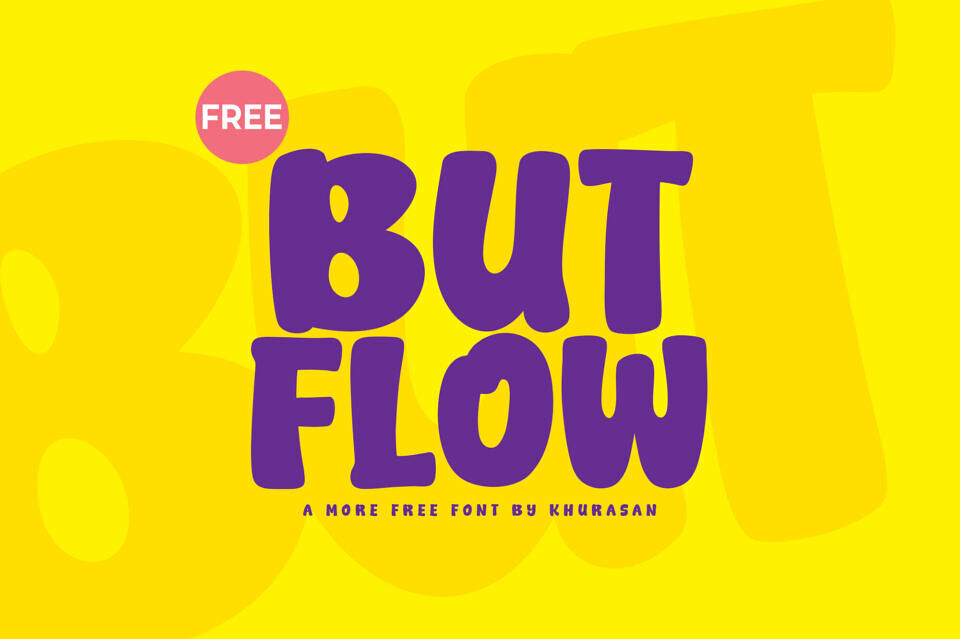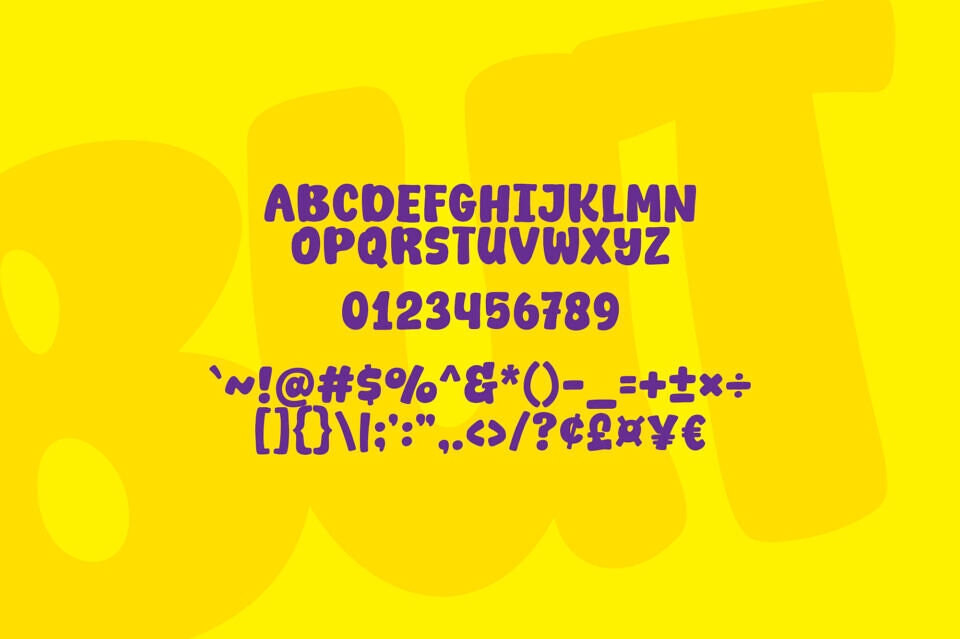
Add a laid-back vibe to your designs with Butflow, a vibrant display font. Its modern, hand-drawn style combines smooth strokes with playful curves, giving it a spontaneous, handwritten feel. The mixed-case letters and varying baseline heights create a sense of effortless energy, perfect for casual and creative layouts.